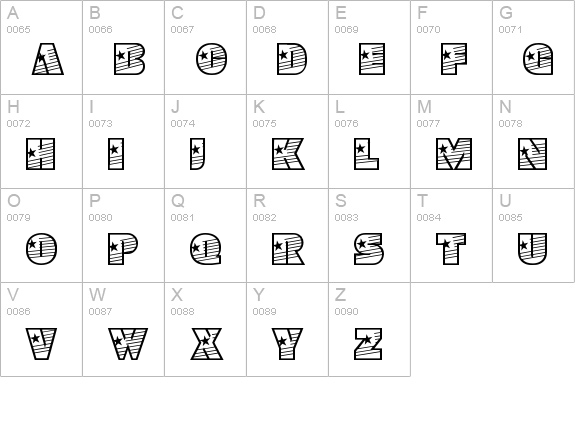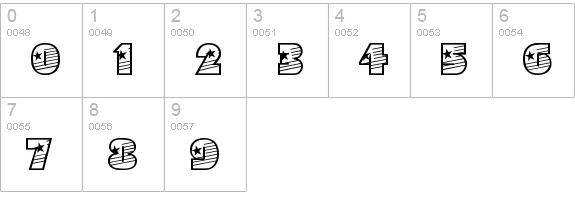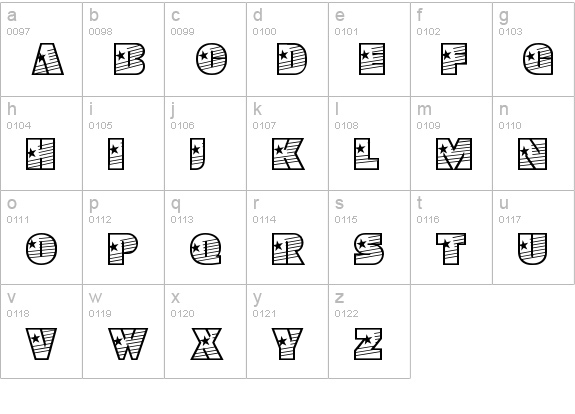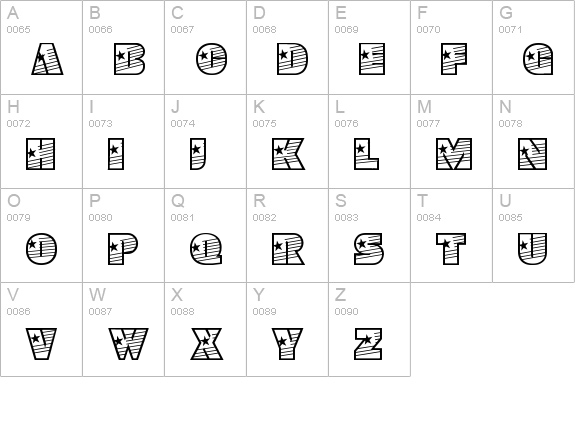
YoungStar Font Details
Discover the captivating charm of YoungStar font, a modern and stylish typeface perfect for adding a touch of youthful energy to your designs. With its sleek lines and playful curves, YoungStar exudes a fresh and dynamic vibe that will make your projects stand out. This versatile font is ideal for a wide range of design applications, from branding and packaging to social media graphics and website design. Its clean and legible design ensures readability across various platforms and sizes, making it a practical choice for both print and digital projects. Best of all, YoungStar font is available for free download at FontsMarket.com. Whether you're a seasoned designer looking to add a new font to your collection or a beginner seeking a trendy typeface to enhance your projects, YoungStar is the perfect choice. Don't miss out on this opportunity to elevate your designs with the modern flair of YoungStar font.